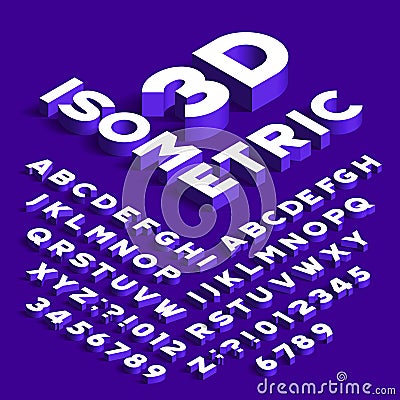
Isometric Alphabet Font. 3d Effect Letters, Numbers And Symbols With Shadows. Vector Illustration
Isometric alphabet font. 3d effect letters, numbers and symbols with shadows. Stock vector typeface for any typography design.